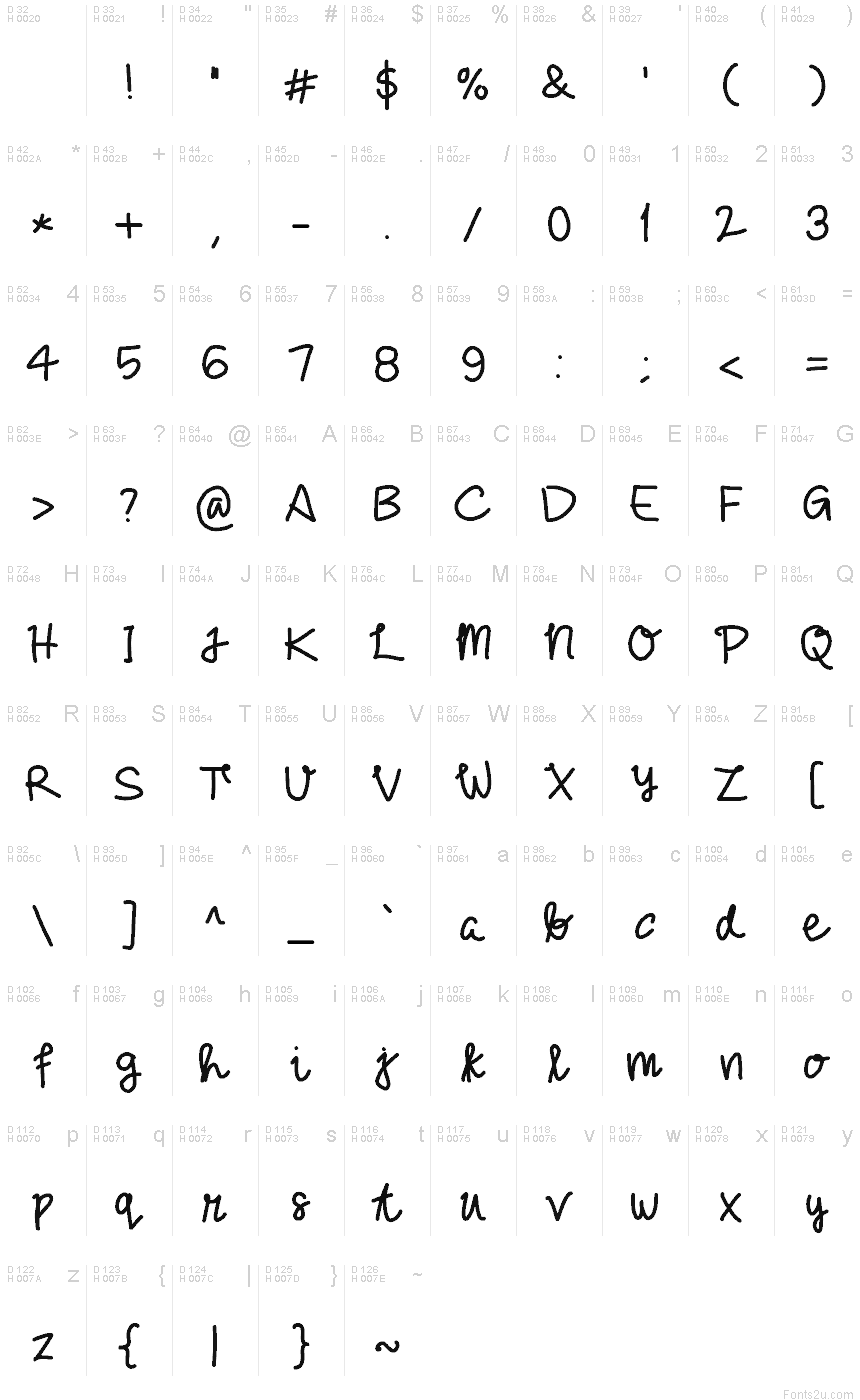
For Her By @fananmoch
It's been long since the last time i made font. This is the new style of my font, and i guess this style i would name it handwritten by myself, ahaha, i don't know... :v